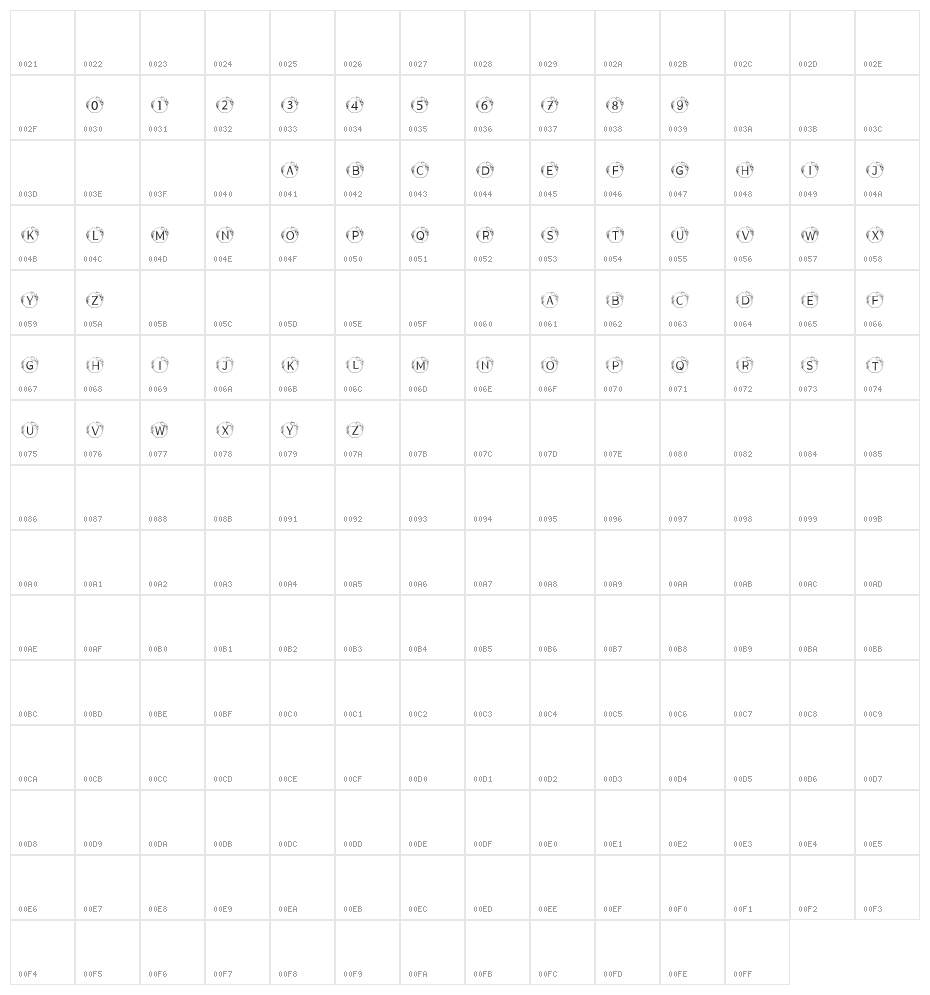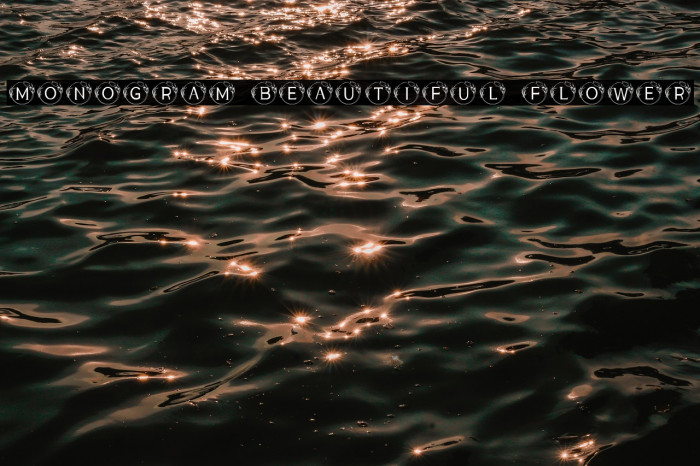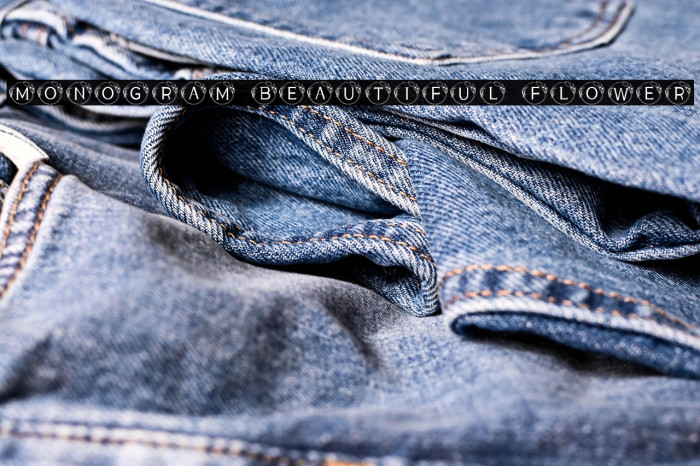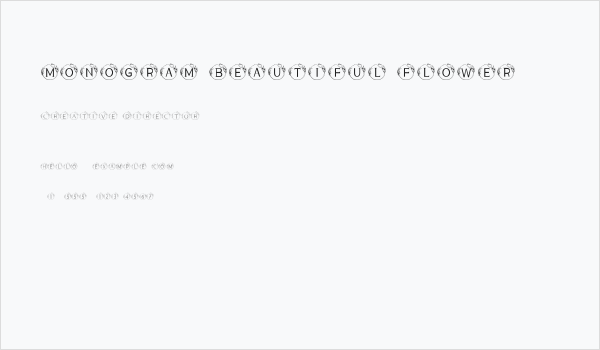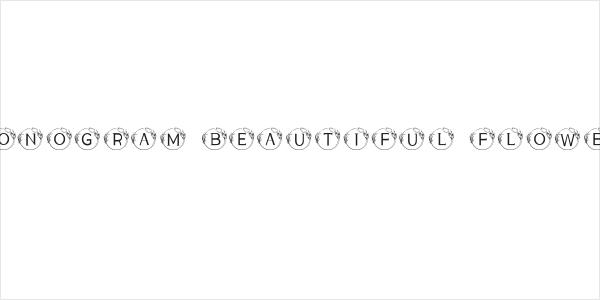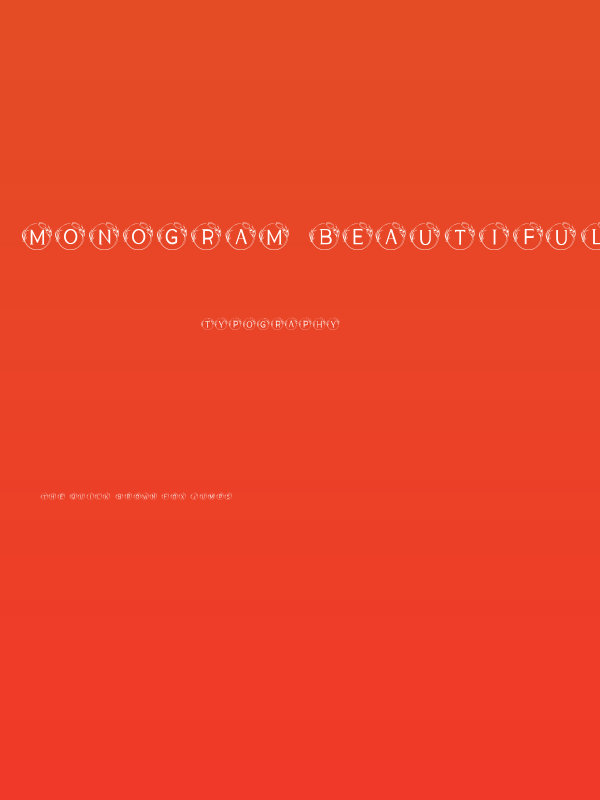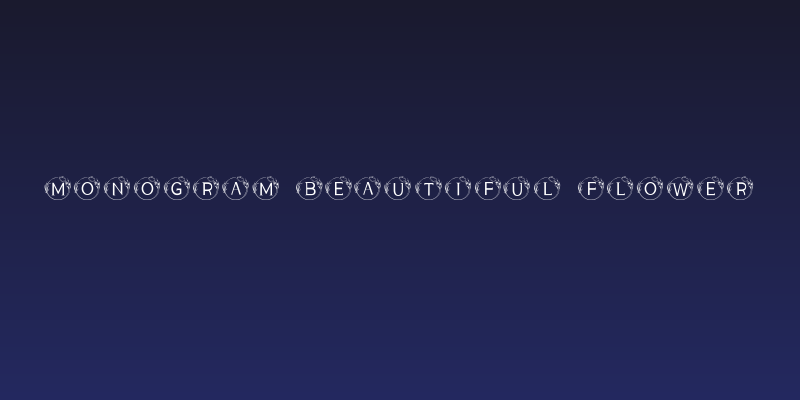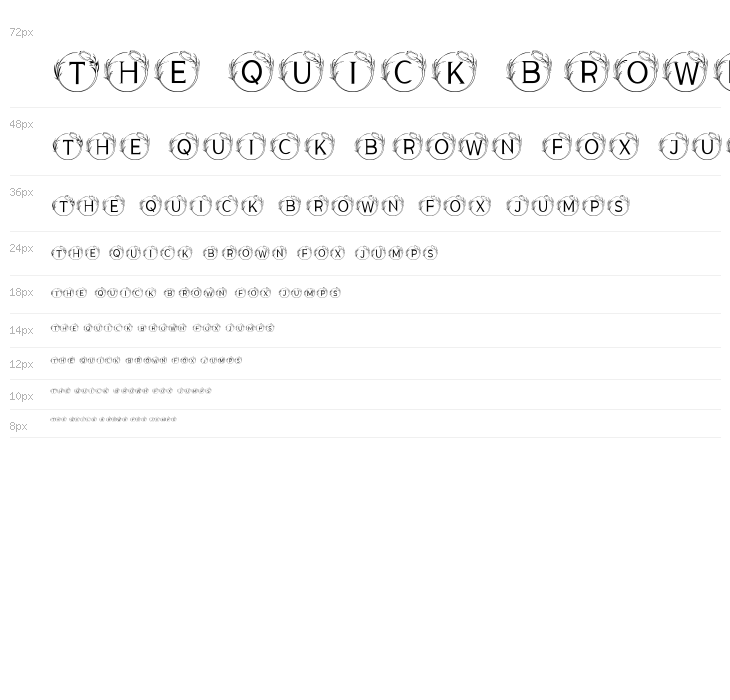
MONOGRAM BEAUTIFUL FLOWER Font
MONOGRAM BEAUTIFUL FLOWER Description
This font features a unique and elegant design where each character is encased within a circular frame adorned with delicate floral motifs. The letters and numbers are presented in a classic serif style, providing a timeless and sophisticated appearance. The floral elements add a decorative touch, making it ideal for projects that require a blend of elegance and creativity. The overall design is balanced, with each character maintaining a consistent size and style, ensuring readability while adding an artistic flair.
| Use Case | Logos, Invitations, Decorative Monograms |
| Proposed Projects | Ideal for wedding invitations, greeting cards, luxury branding, and decorative monograms. |